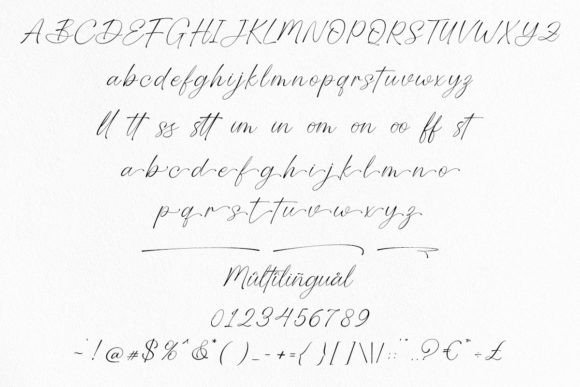
Something Different Font
Something Different is a flowing handwritten font, described by an elegant touch, perfect for your favorite projects. Fall in love with its incredibly distinct and timeless style and use it to create spectacular designs!